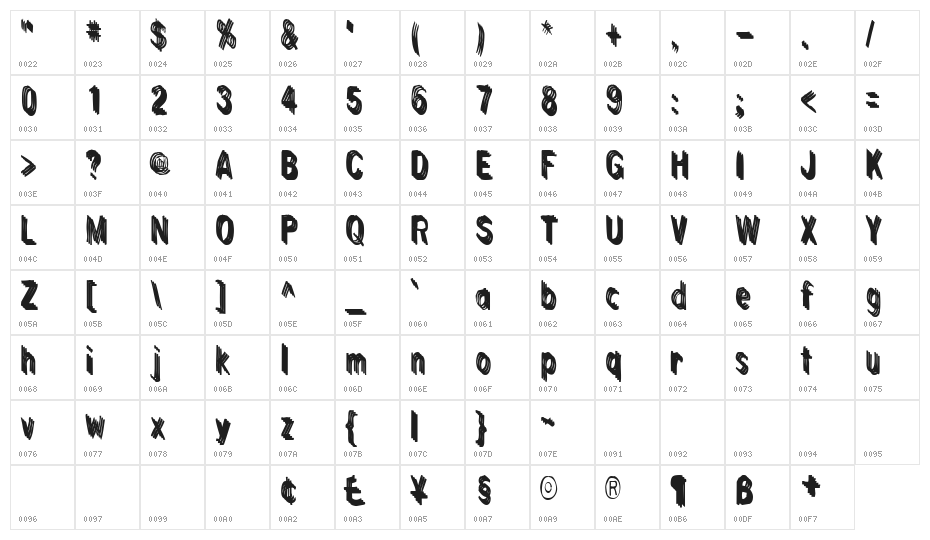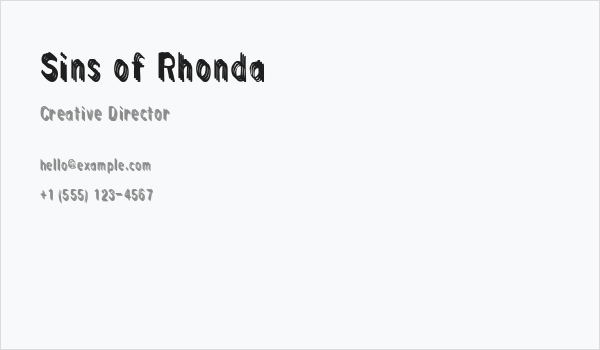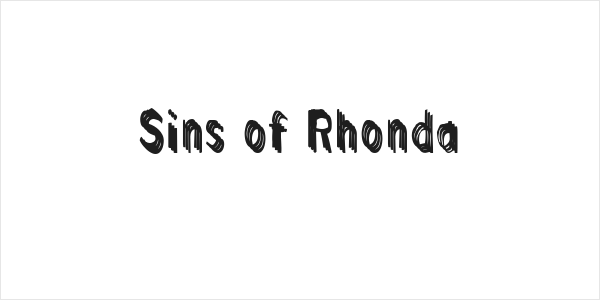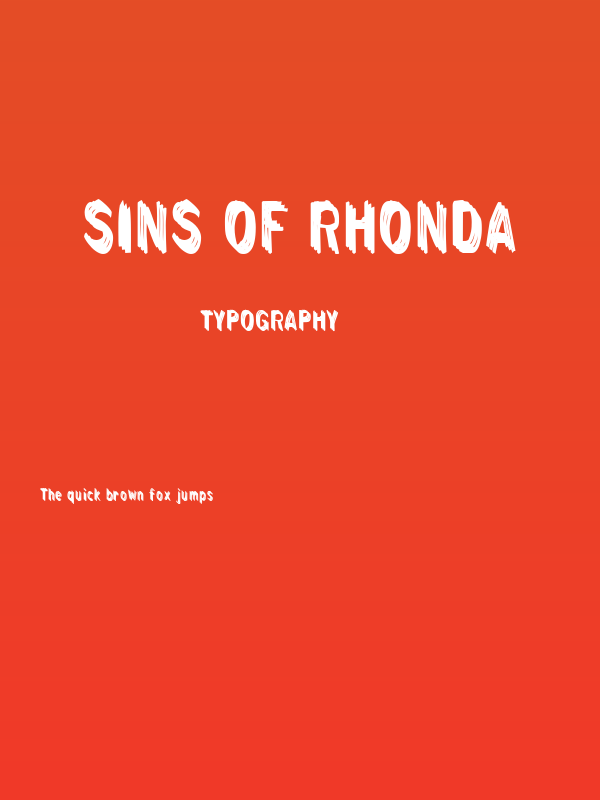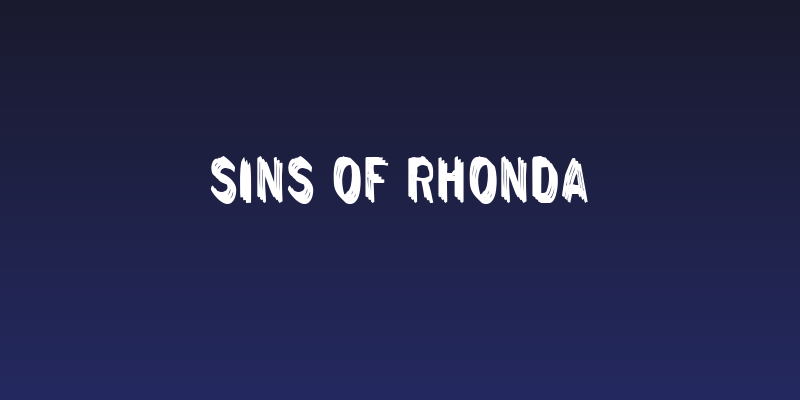
Sins of Rhonda Font
Sins of Rhonda Description
This font features a bold, artistic style with a hand-drawn appearance. The characters are heavily textured, giving them a dynamic and energetic feel. The strokes are irregular and vary in thickness, creating a sense of movement and spontaneity. The uppercase and lowercase letters maintain a consistent design, while the numbers and special characters complement the overall aesthetic. This font is ideal for projects that require a bold statement and a creative touch.
| Overall Style | Artistic, Dynamic |
| Proposed Projects | Ideal for posters, album covers, artistic branding, and creative advertising. |